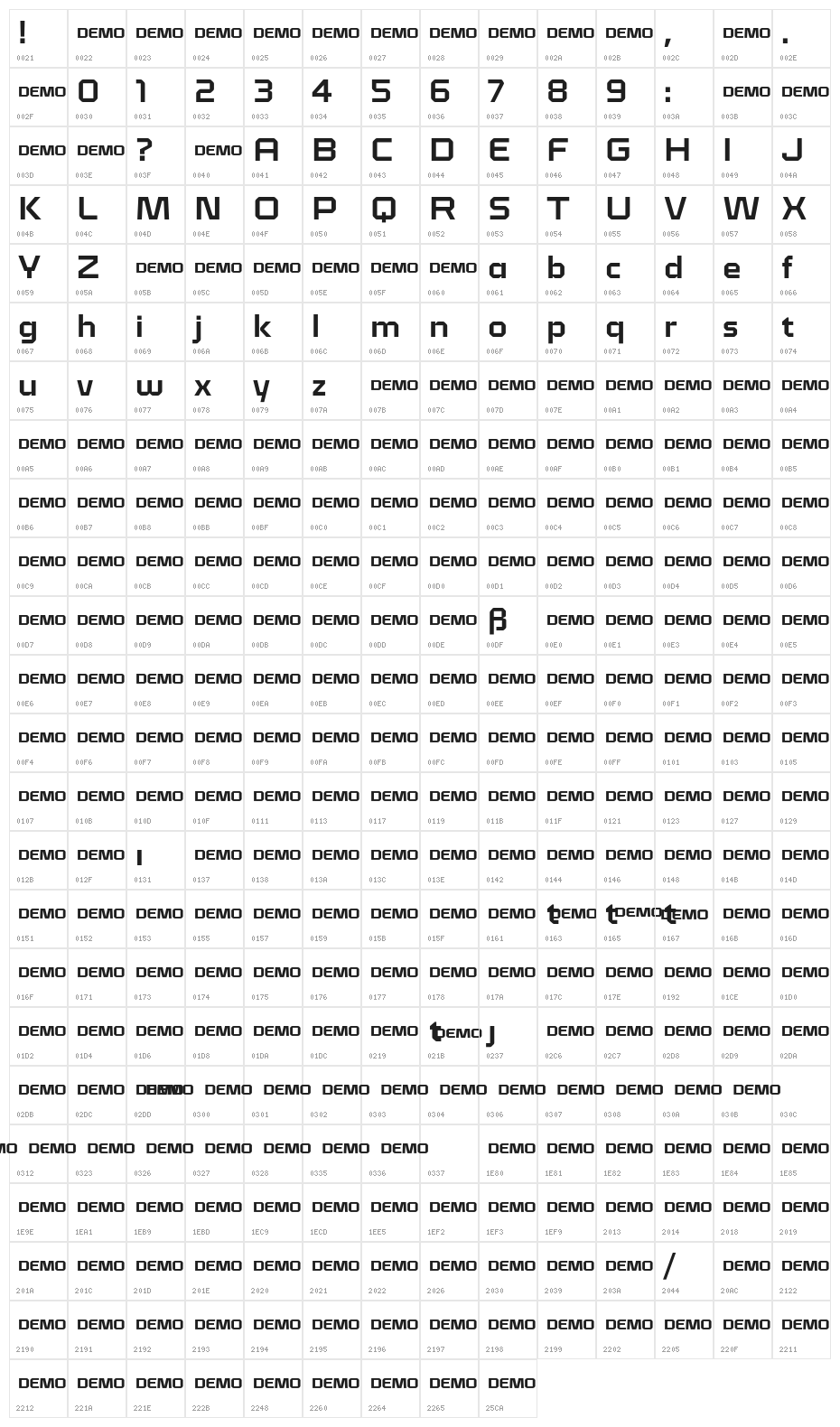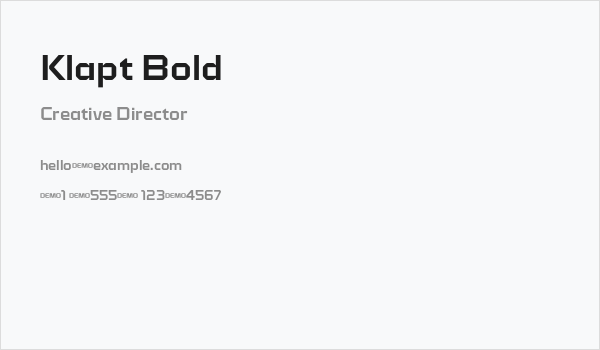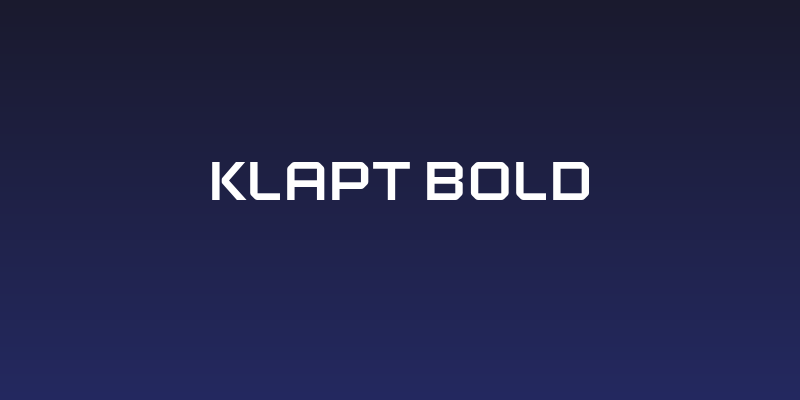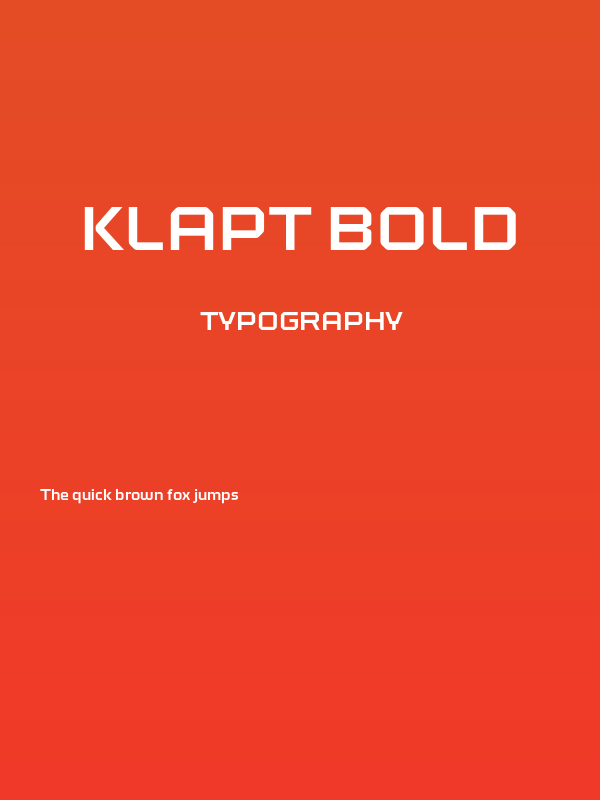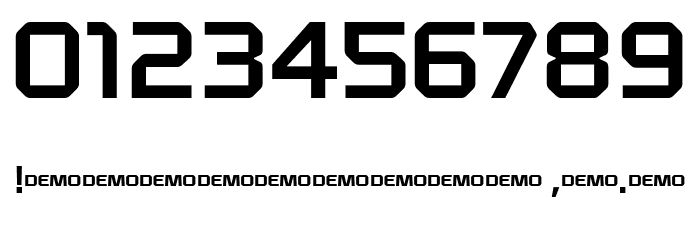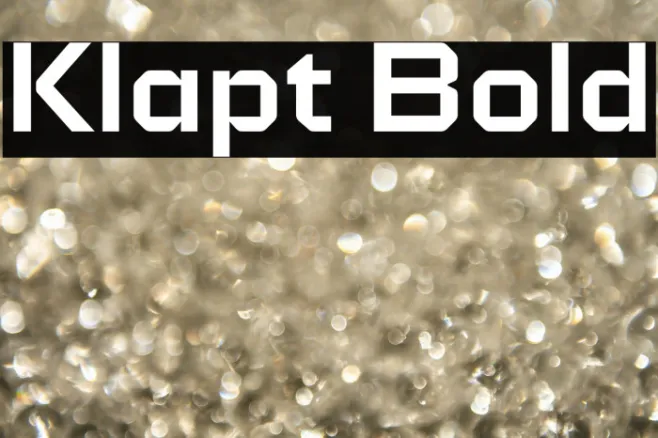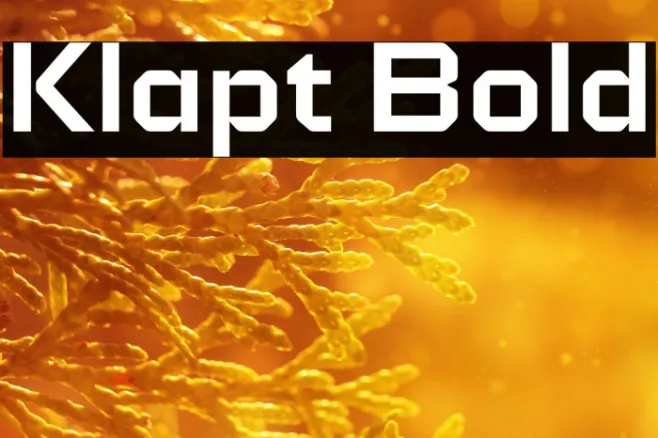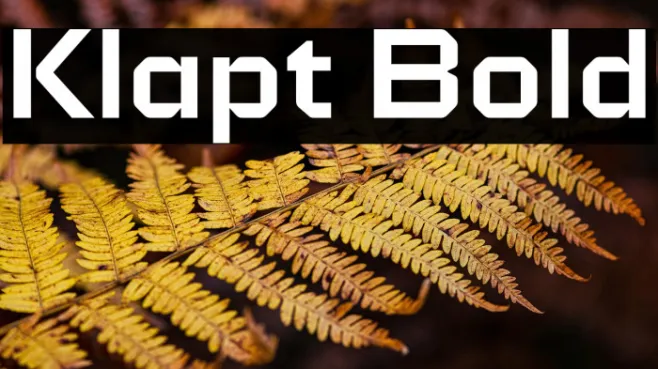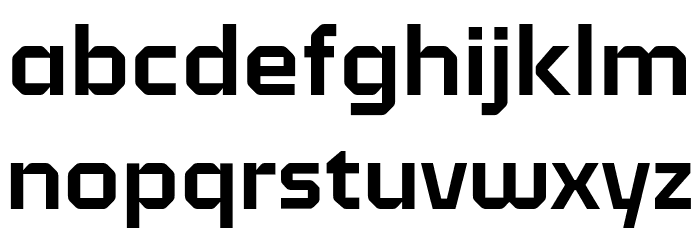
Klapt Bold Font
Klapt Bold Description
This typeface features a bold, geometric design with a modern and clean aesthetic. The characters are constructed with straight lines and sharp angles, giving it a futuristic and technical feel. The uppercase and lowercase letters maintain a consistent height, contributing to a uniform appearance. The numerals are equally bold and follow the same geometric style, ensuring readability and visual impact. The special characters are designed to match the overall style, making this font versatile for various applications.
| Proposed Projects | Ideal for technology branding, modern posters, digital interfaces, and futuristic designs. |